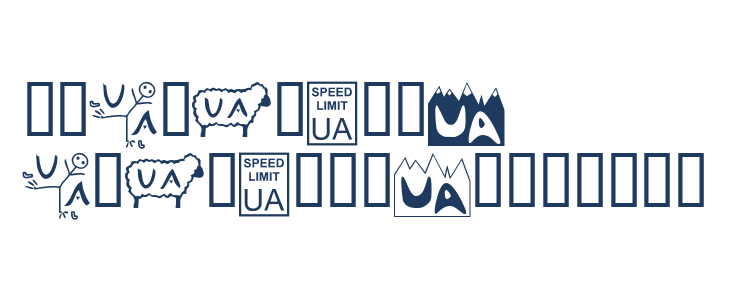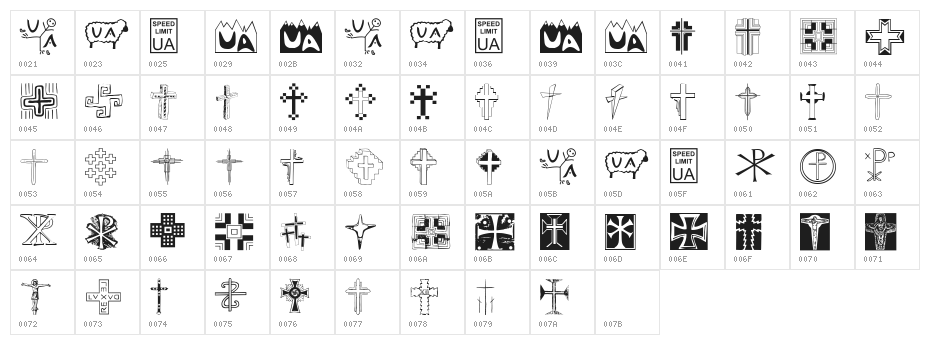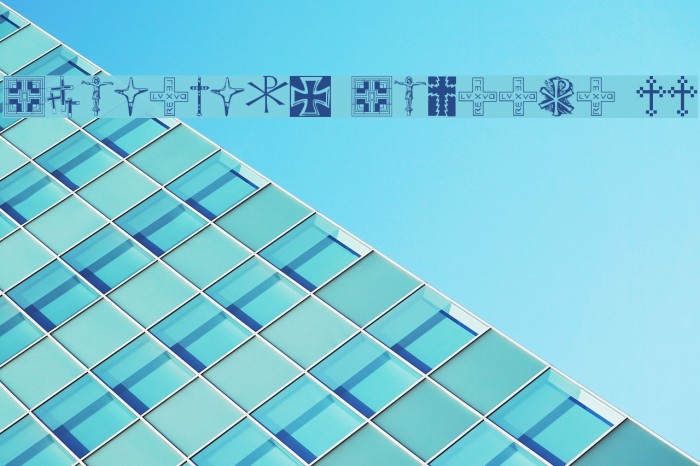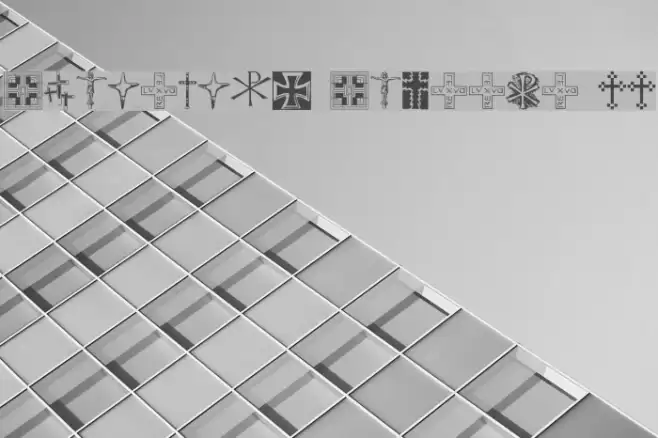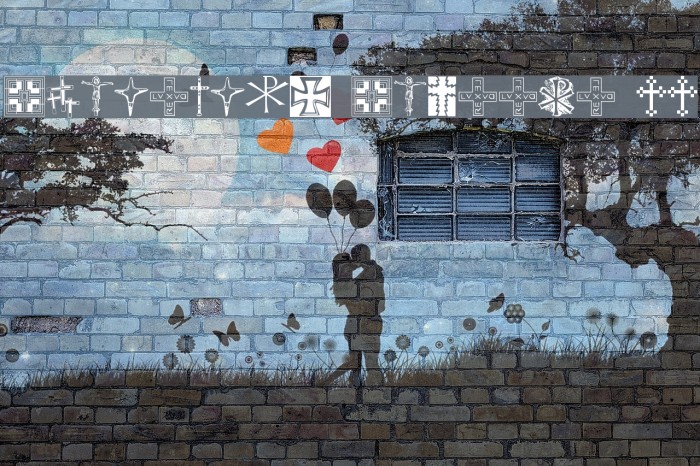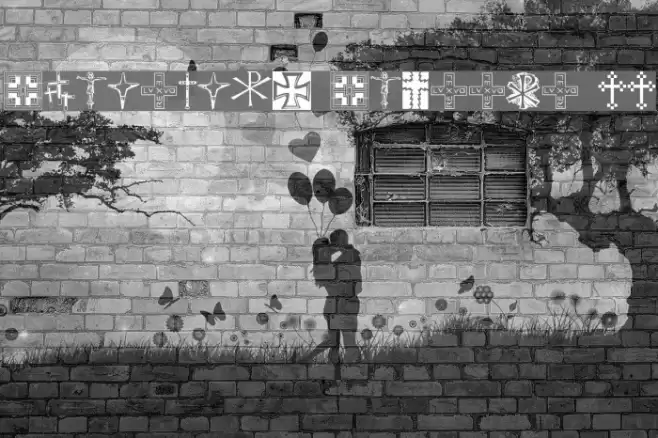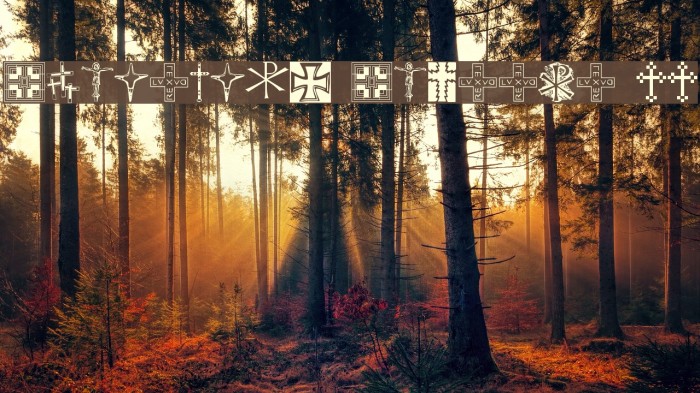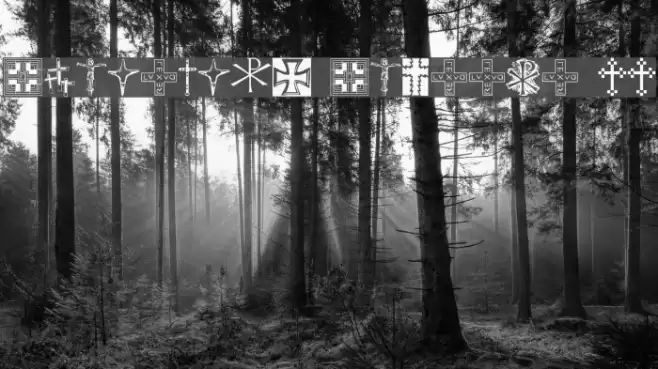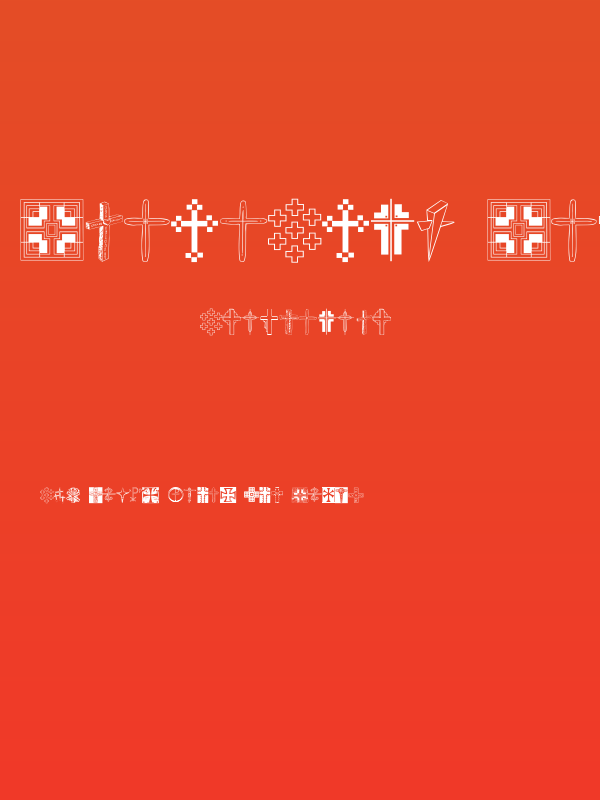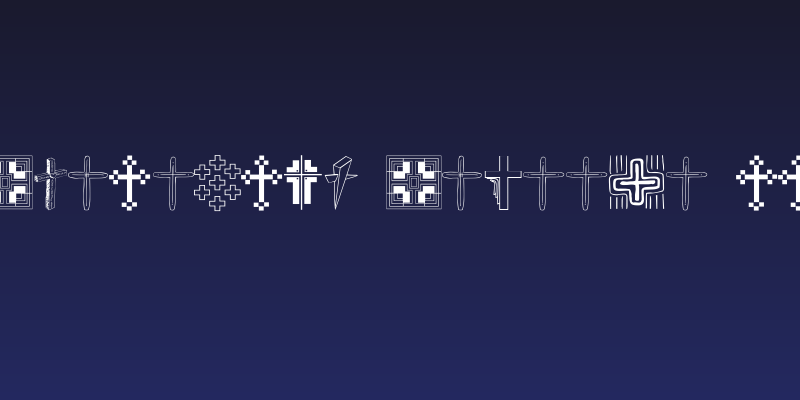
Christian Crosses II Font
Christian Crosses II Description
A decorative display font featuring a wide variety of Christian cross symbols and related religious iconography, each character represented by a unique cross or religious motif. The glyphs are highly stylized, ranging from simple outlines to intricate, filled designs, and some include additional elements like figures or text. The font is non-traditional and intended for symbolic or illustrative use rather than standard text.
| Overall Style | Decorative, Religious, Symbolic |
| Use Case | Icons, Decorative elements, Thematic graphics |
| Proposed Projects | Religious event flyers, church bulletins, Easter or Christmas decorations, educational materials, graphic design projects requiring Christian symbolism. |